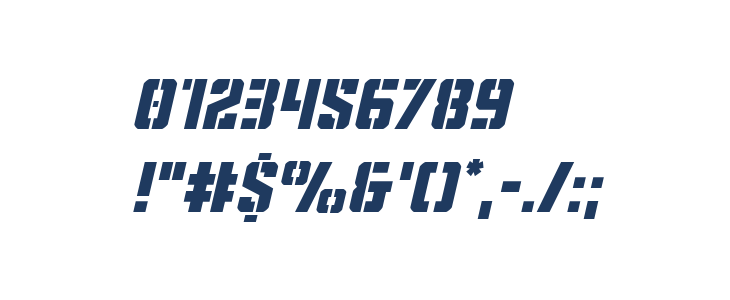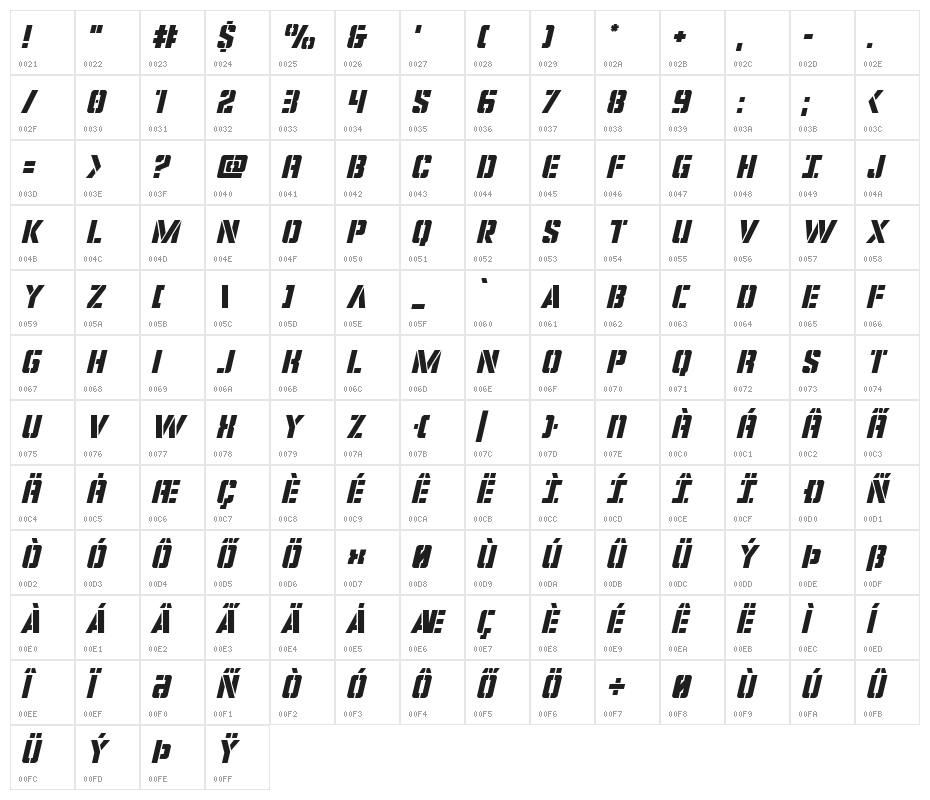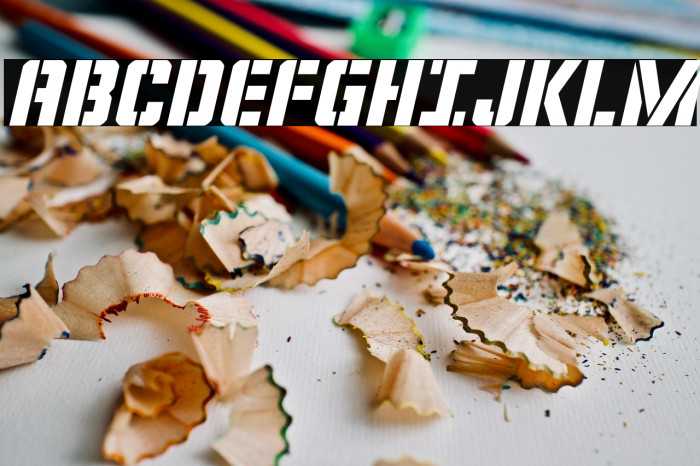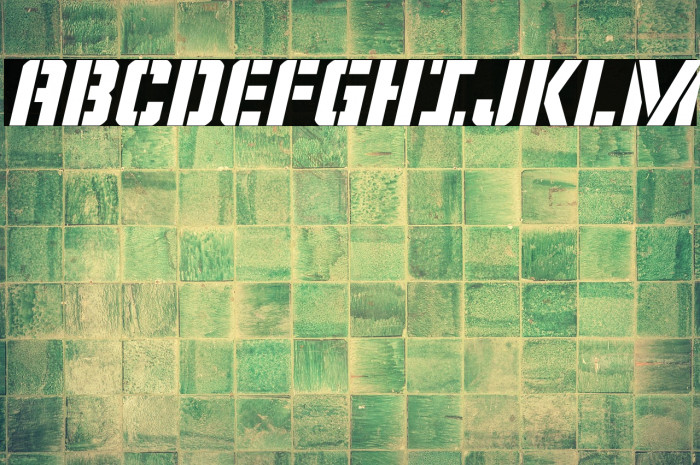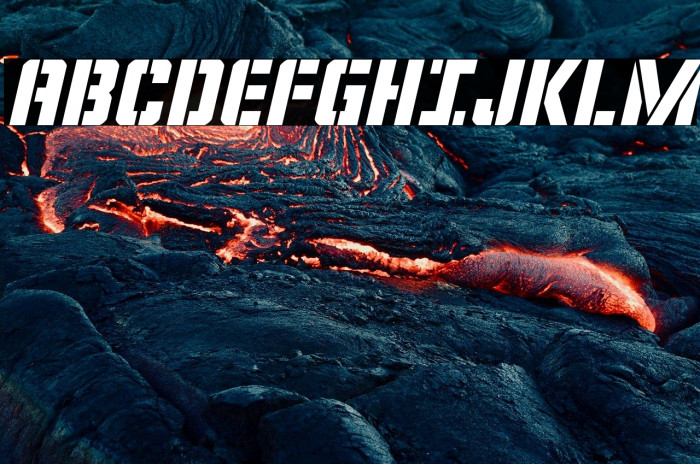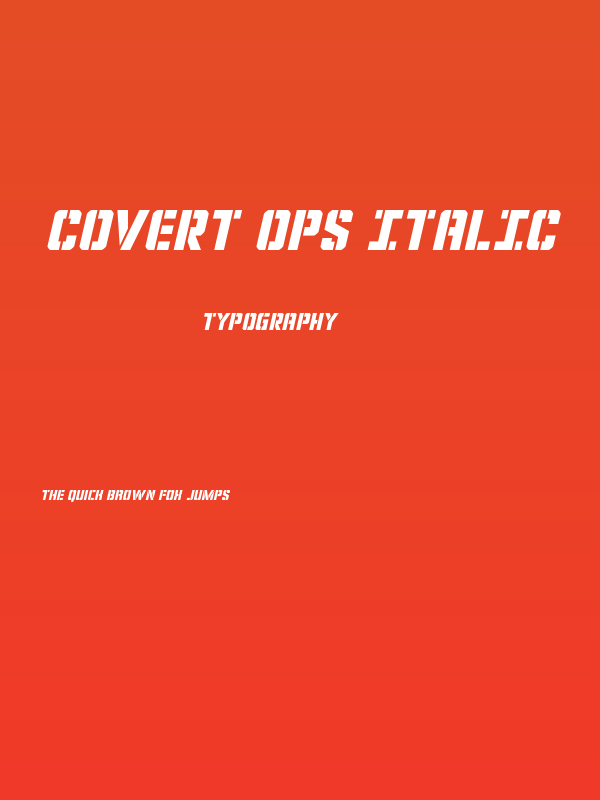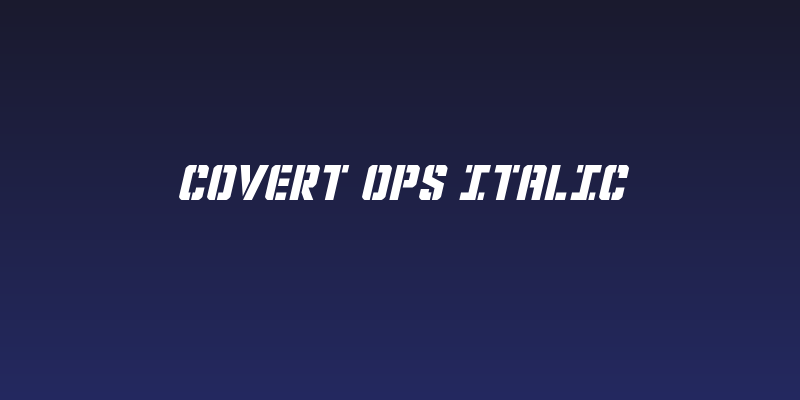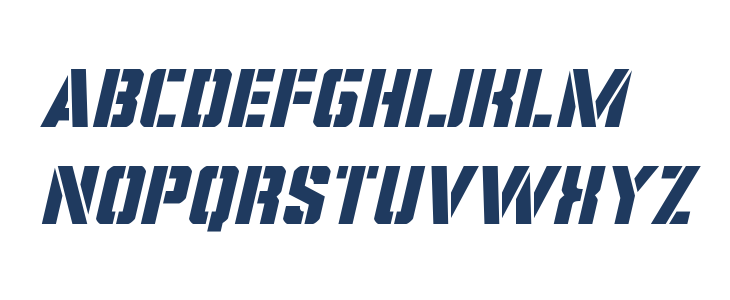
Covert Ops Italic Font
Covert Ops Italic Description
This font features a bold, italicized style with a distinct, angular design. The characters are sharply cut with a futuristic and dynamic appearance, making it ideal for attention-grabbing headlines or branding that requires a modern, edgy look. The uppercase and lowercase letters maintain a consistent slant, enhancing the italic effect. The numerals and special characters follow the same stylistic cues, ensuring uniformity across all text elements. The font's strong geometric shapes and high contrast between thick and thin strokes contribute to its assertive and impactful presence.
| Proposed Projects | Ideal for use in sci-fi movie posters, video game covers, tech branding, and sports team logos. |